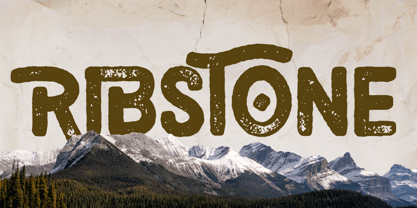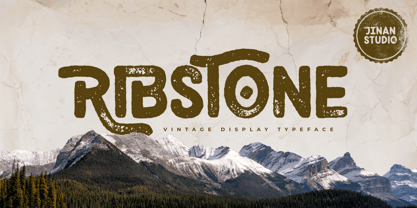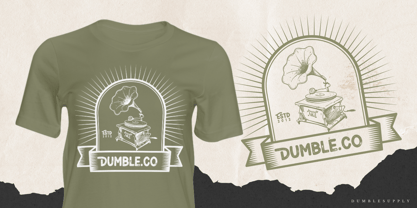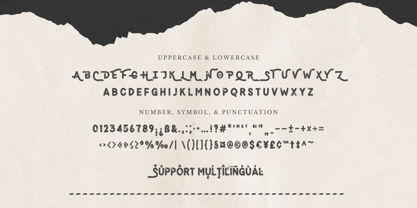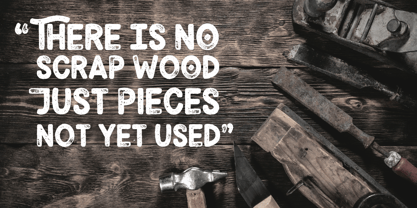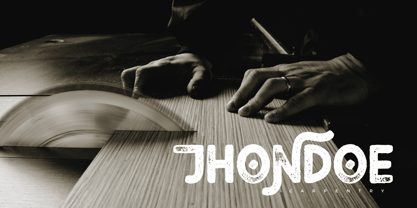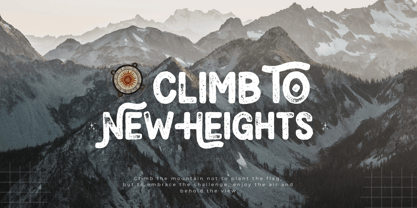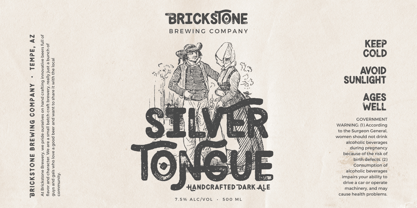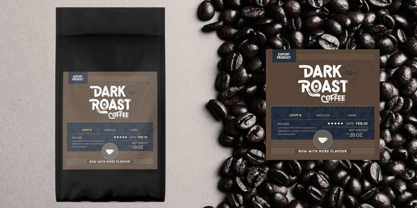
Ribstone
by Jinan Studio
The Ribstone Font Family was designed by Andi Syahdang, Ainun Jinan and published by Jinan Studio. Ribstone contains 1 styles.
Ribstone Vintage Display Typeface is a charming and versatile font that easily captures the essence of a bygone era. Alternate on uppercase which makes it very easy to use. With its rich texture and vintage style, it is perfect for vintage-themed designs, harkening back to a time of old-world elegance and adventure, whether you're working on packaging, branding, or any design project that requires a touch of vintage style, Ribstone delivers style and authenticity.
Additionally, this font offers comprehensive multilingual support, ensuring your message can be conveyed effectively to a global audience. With Ribstone, you can evoke the past while creating a modern design that is visually striking and stands out in the contemporary design landscape.
• A set of uppercase and lowercase glyphs
• Number, symbol, and punctuation
• Multilingual Support